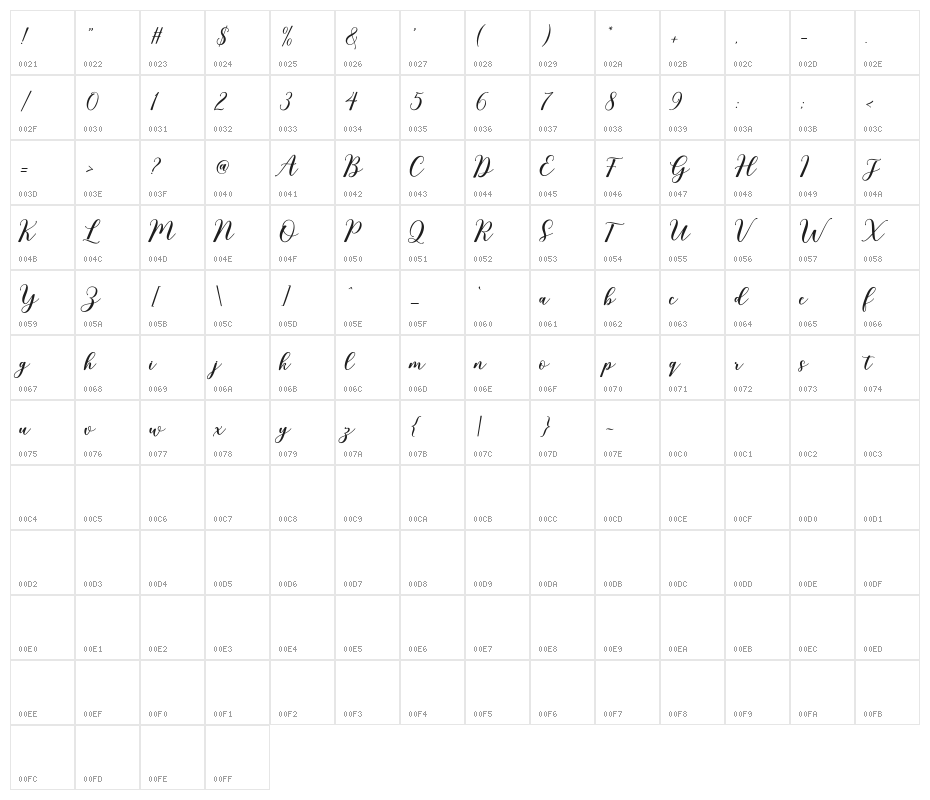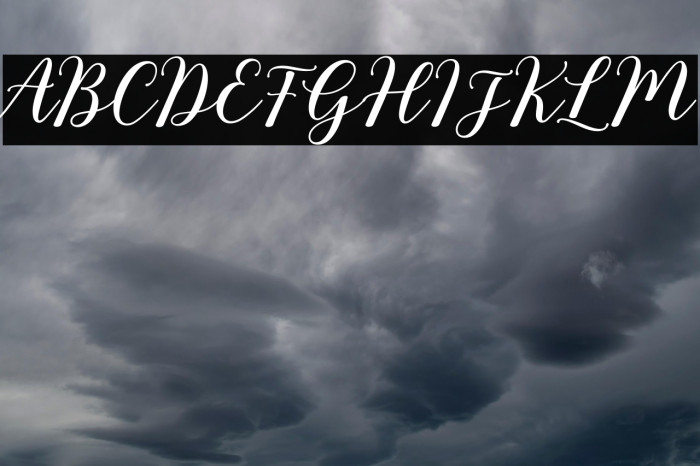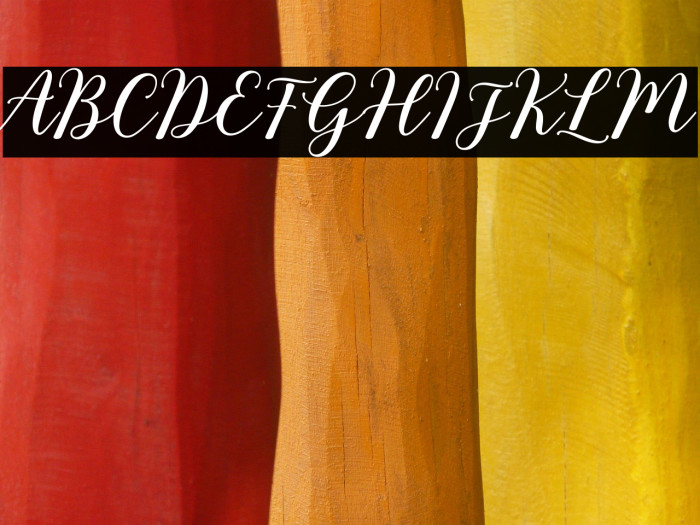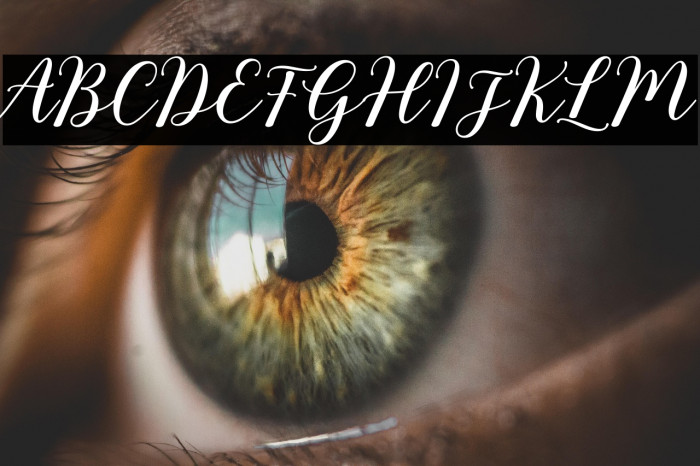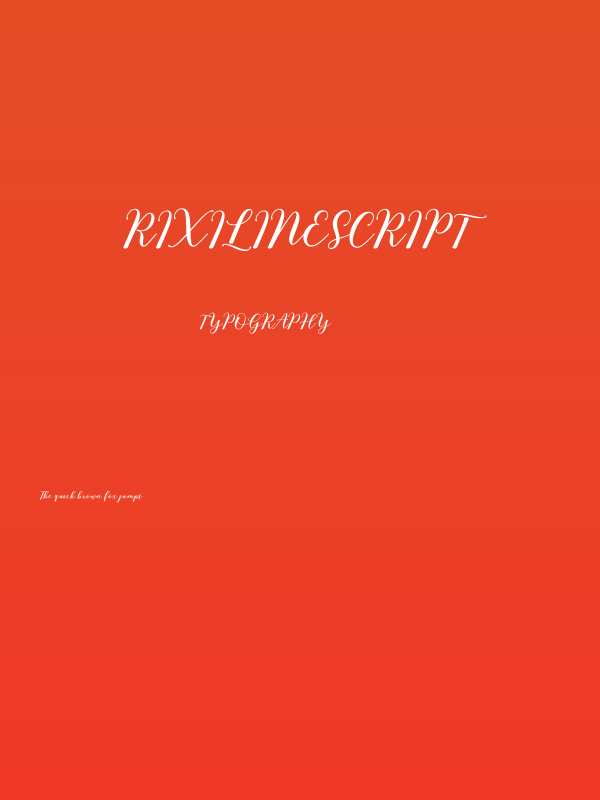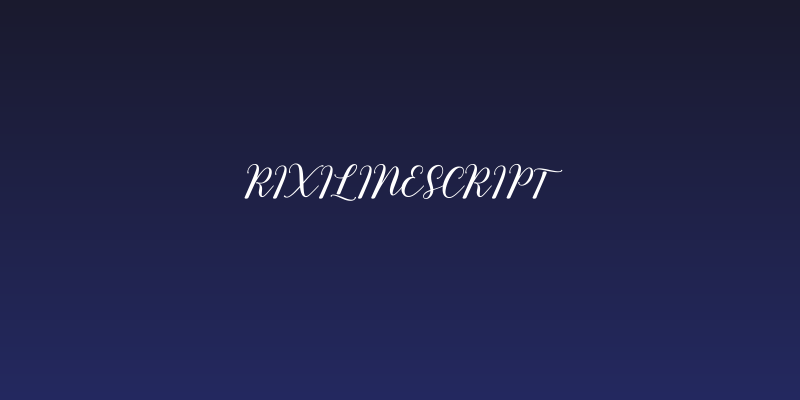
RixilineScript Font
RixilineScript Description
This elegant script font features a flowing, cursive style with smooth, connected strokes that give it a sophisticated and graceful appearance. The uppercase letters are slightly more elaborate, with extended flourishes that add a touch of drama and flair. The lowercase letters maintain a consistent flow, making the text easy to read while retaining its decorative charm. The numerals and special characters are designed to complement the overall style, with a similar fluidity and attention to detail. This font is perfect for projects that require a touch of elegance and sophistication.
| Overall Style | Elegant, Decorative |
| Use Case | Logos, Invitations, Decorative text |
| Proposed Projects | Ideal for wedding invitations, elegant branding, greeting cards, and upscale packaging. |